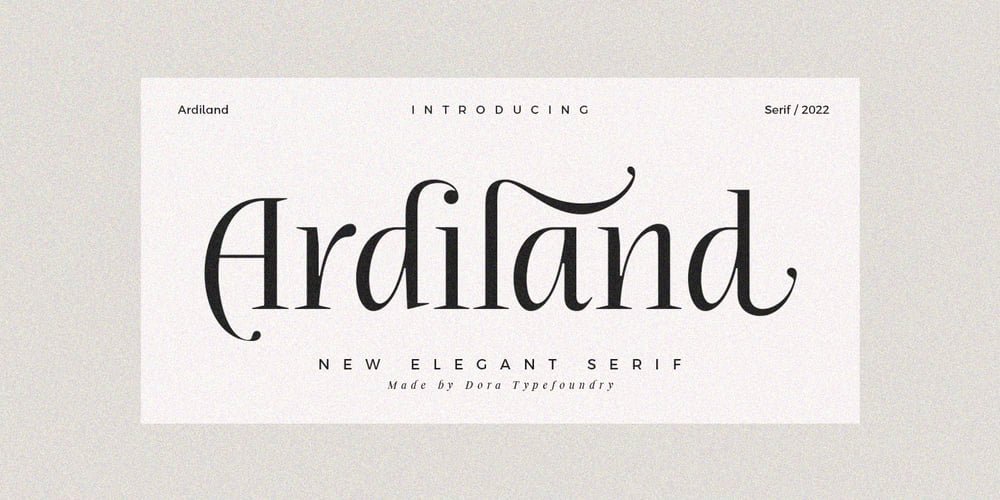
Ardiland
Ardiland font
Ardiland Font Family was designed by Zahratul Laila and published by Dora Typefoundry. Ardiland contains 1 styles and family package options. Introducing, Ardiland – a stylish serif with beautiful binders and substitutes!Ardiland is a modern serif font to apply to many graphic or editorial design projects. A classy, ​​unique high contrast, and light binding style for your upcoming projects. for feminine logo signs, fashion & editorial design heads, branding projects, Apparel Branding, packaging, magazine titles, advertisements, T-shirts, postcards and other special occasions.Here’s what’s included: Alternatives & Ligatures Numbers & punctuation Character with accent Support Multiple Languages PUA encoded This type of family has become the work of true love, making it as easy and fun as possible. I really hope you enjoy it!Thank you